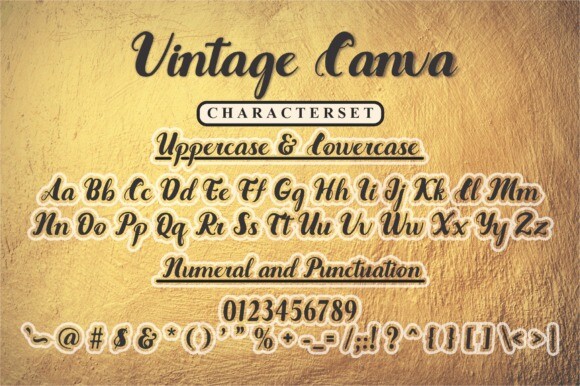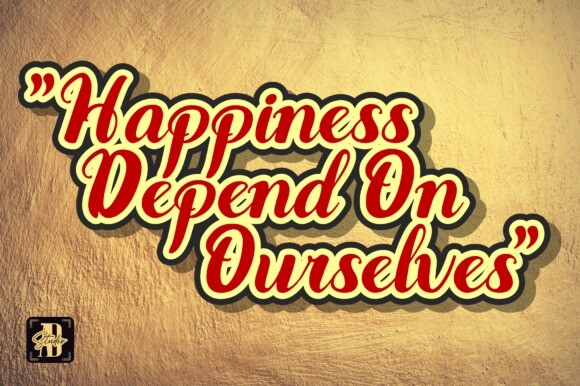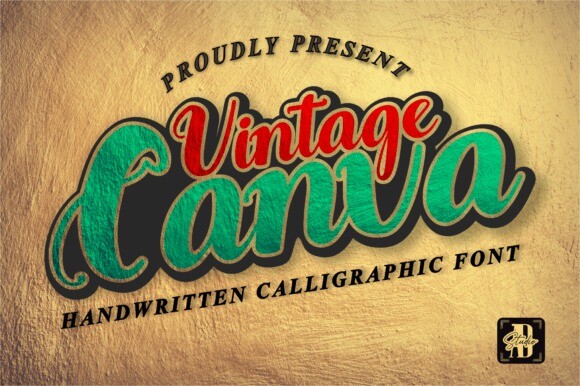
Vintage Canva Font
Vintage Canva Font is an elegant calligraphic handwritten bold font that has a very neat style. Expertly designed to make your creations look amazing, this font will look great on a variety of ideas. It is perfect for apparel branding, daily quotes, tote bag or handbag branding, product packaging, headers, posters, merchandise, wedding invitation, & social media and so much more.